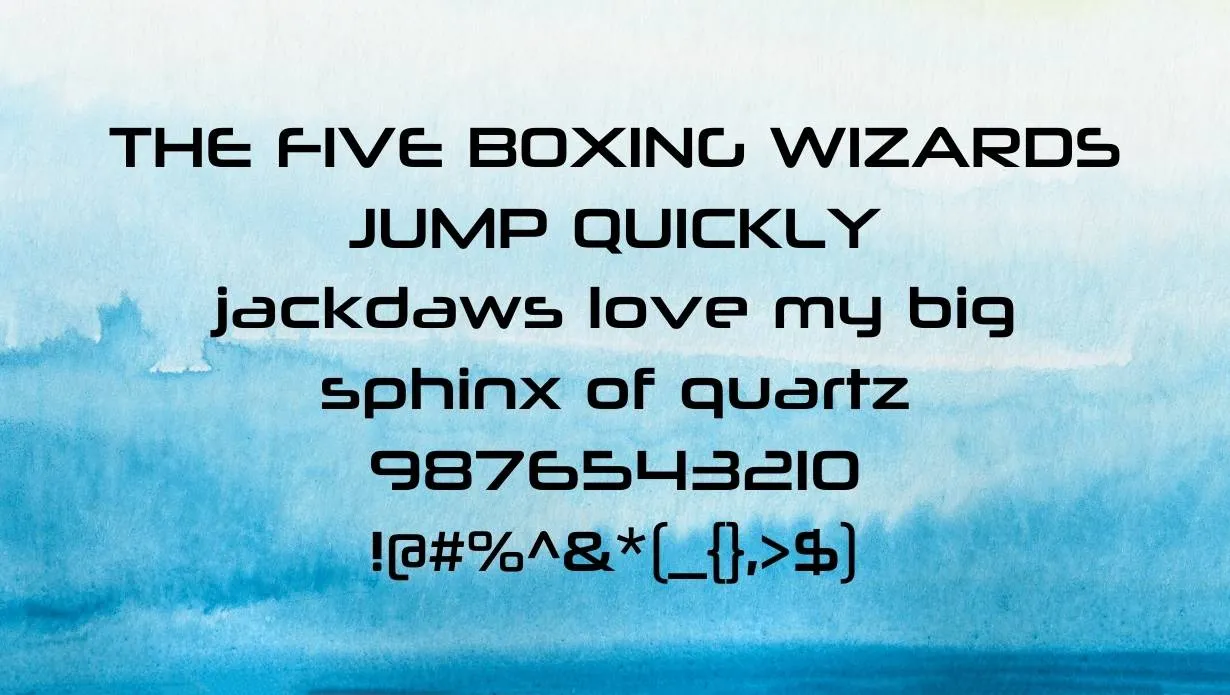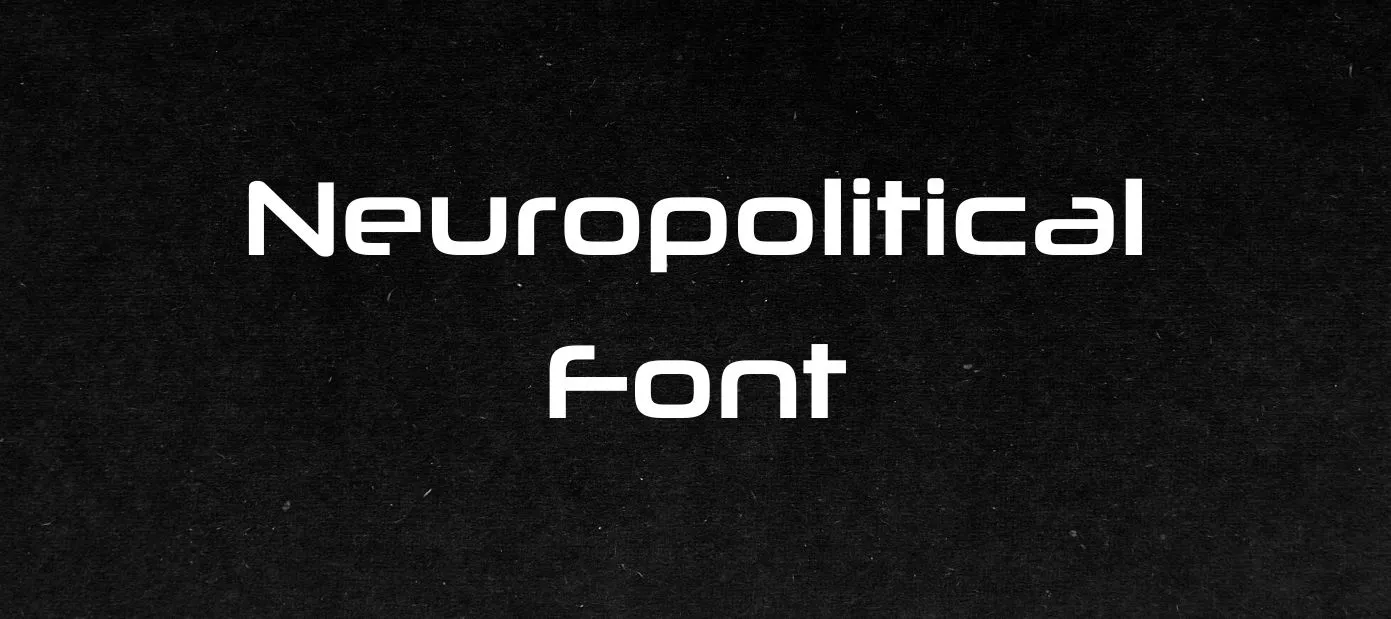
Neuropolitical Font Family
Neuropolitical Font Family - Born from the dna of the iconic 1990s techno typeface neuropol, neuropolitical takes that legacy and propels it into the future. Born from the dna of the iconic 1990s techno typeface neuropol, neuropolitical takes that legacy and propels it into the future.
Born from the dna of the iconic 1990s techno typeface neuropol, neuropolitical takes that legacy and propels it into the future. Born from the dna of the iconic 1990s techno typeface neuropol, neuropolitical takes that legacy and propels it into the future.
Neuropolitical font a sleek display font family based on Neuropol X
Born from the dna of the iconic 1990s techno typeface neuropol, neuropolitical takes that legacy and propels it into the future. Born from the dna of the iconic 1990s techno typeface neuropol, neuropolitical takes that legacy and propels it into the future.
Born From The Dna Of The Iconic 1990S Techno Typeface Neuropol, Neuropolitical Takes That Legacy And Propels It Into The Future.
Born from the dna of the iconic 1990s techno typeface neuropol, neuropolitical takes that legacy and propels it into the future.